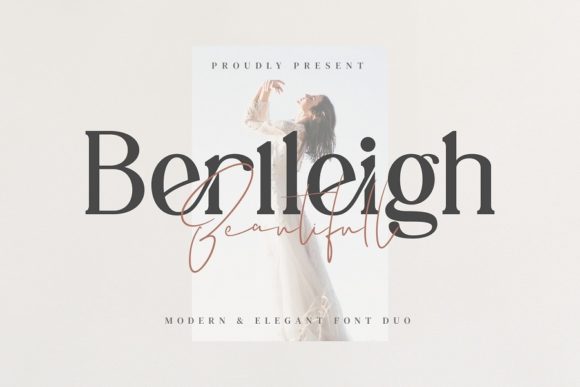
Looking to add a touch of elegance and joy to your projects? Look no further than Berlleigh Beautifull Duo Font! Created by the talented Aqeel_Art, this font collection is the perfect choice for those seeking the best font for corporate email.
Berlleigh Beautifull Duo Font is a remarkable combination of a serif and script font, meticulously crafted to complement each other flawlessly. Whether used together or individually, these fonts will instantly elevate your designs, making them visually stunning and captivating.
What sets Berlleigh Beautifull Duo Font apart is its ability to add a chic and cheery vibe to any project. Whether you're designing invitations, crafting logos, or creating eye-catching social media posts, this font collection will impress and inspire. Its versatility knows no bounds, making it a must-have for both professional designers and DIY enthusiasts alike.
Not only does Berlleigh Beautifull Duo Font offer exceptional aesthetics, but it also boasts practicality. With its PUA encoding, accessing all the unique glyphs and swashes has never been easier. This feature allows you to unleash your creativity and personalize your designs with ease, adding that extra touch of uniqueness and charm.
Imagine the impact of using Berlleigh Beautifull Duo Font in your corporate email communications. Stand out from the crowd, leave a lasting impression, and make your messages memorable with this stunning font collection. Your recipients won't be able to resist reading your emails, thanks to the captivating and professional appearance of the fonts.
This font collection is not just about aesthetics; it's about evoking emotions. Berlleigh Beautifull Duo Font will evoke feelings of elegance, sophistication, and joy in your audience. Whether you're aiming to create a brand identity that exudes professionalism or designing for a special occasion, this font collection will help you achieve your goals effortlessly.
In conclusion, Berlleigh Beautifull Duo Font is the ultimate choice for those who desire the best font for corporate email. Its remarkable combination of serif and script fonts, along with its chic and cheery vibes, will elevate your designs to new heights. With easy access to all the glyphs and swashes, your creativity will know no bounds. Make a lasting impression and evoke emotions with Berlleigh Beautifull Duo Font – the go-to font collection for captivating designs!